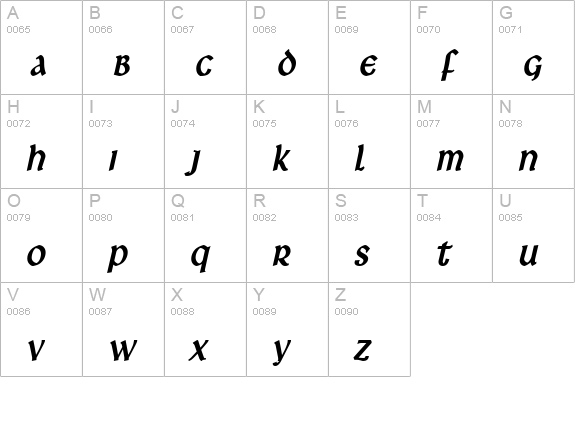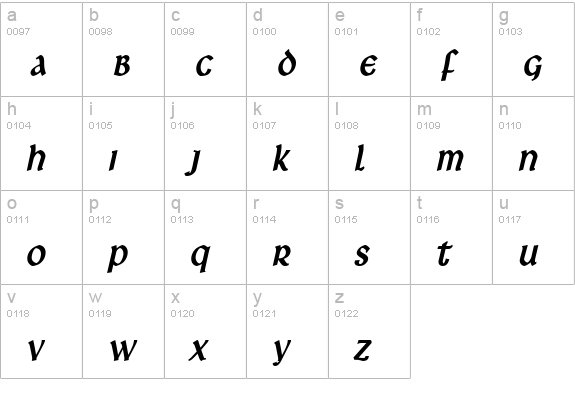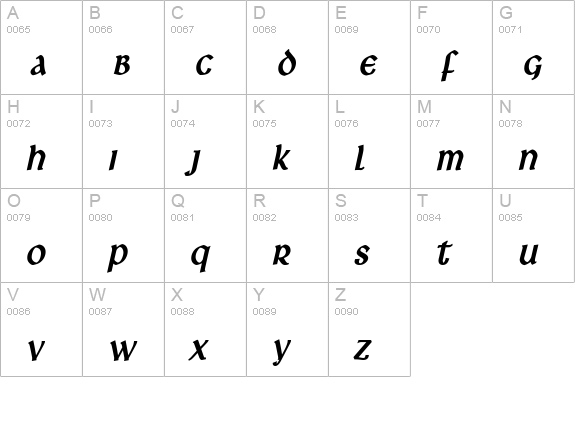
Leo Condensed BoldItalic is a distinctive, condensed-width variant in the Leo typeface family \xE2\x80\x94 well suited to design and typography projects.
Leo Condensed BoldItalic is a stylish and eye-catching font that will add a touch of elegance and sophistication to any design project. Its bold and italicized nature creates a strong and striking visual impact, making it perfect for headlines, titles, and attention-grabbing messages. With its condensed form, Leo Condensed BoldItalic is ideal for designs where space is limited, allowing you to fit more text without compromising on style. This font exudes confidence and professionalism, making it a great choice for corporate branding, advertising materials, and editorial layouts. The sleek and modern design of Leo Condensed BoldItalic is complemented by its versatility. It can be used for both print and digital projects, ensuring consistency across different mediums. Whether you are designing a poster, a website, or a magazine spread, this font will make your content stand out. And the best part? Leo Condensed BoldItalic is available for free download at FontsMarket.com. This means that you can easily access and use this font in your projects without any cost. So why wait? Enhance your designs with the bold and italic beauty of Leo Condensed BoldItalic, and make a lasting impression on your audience.